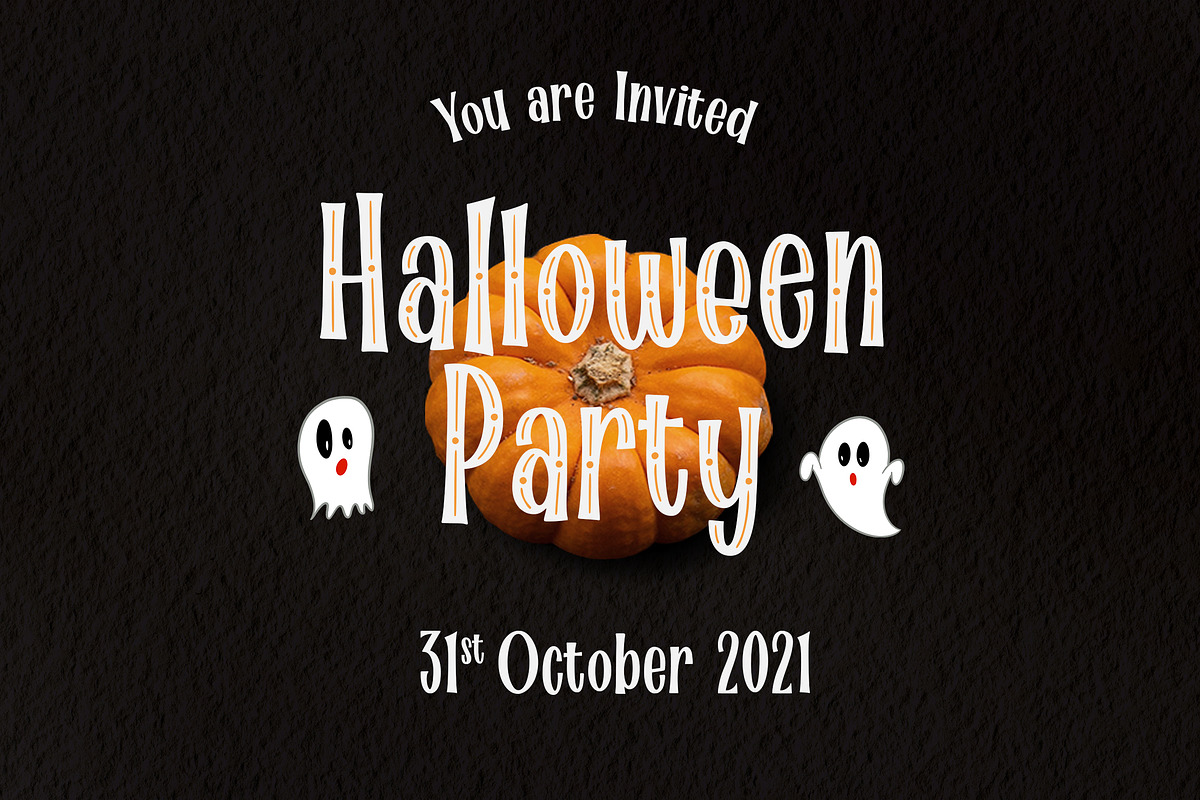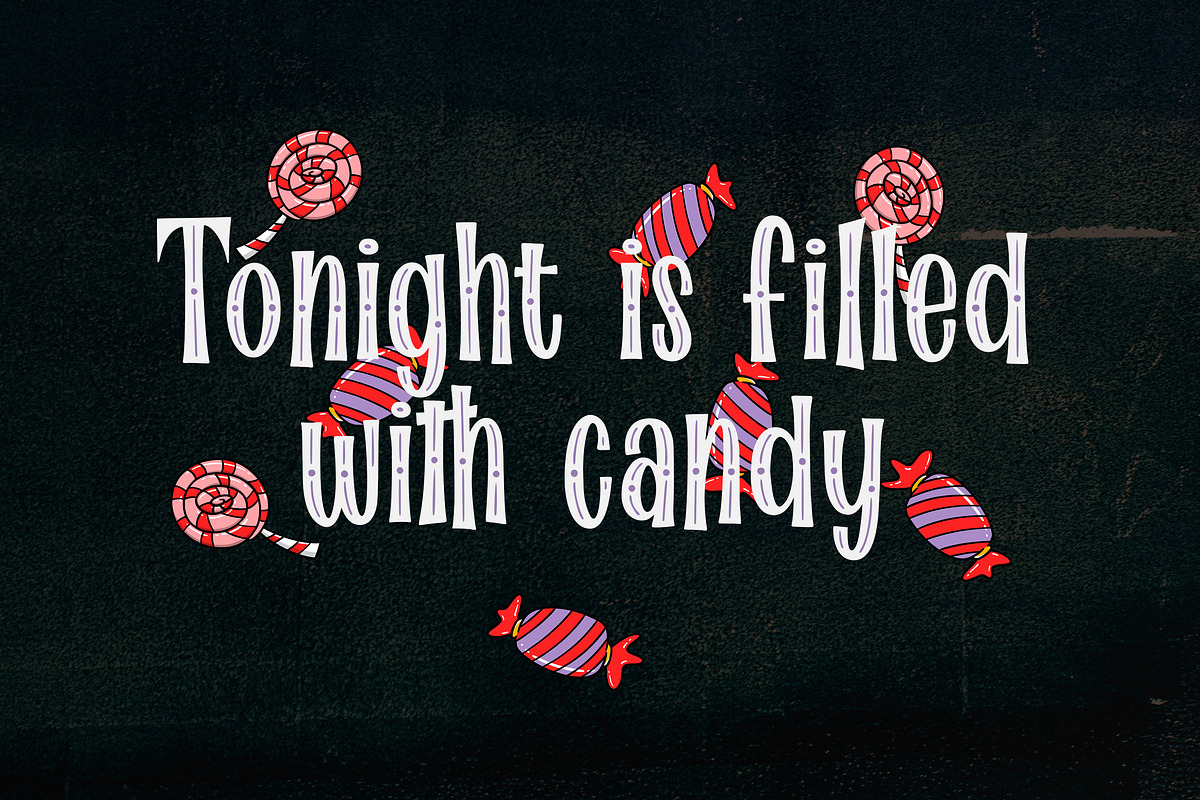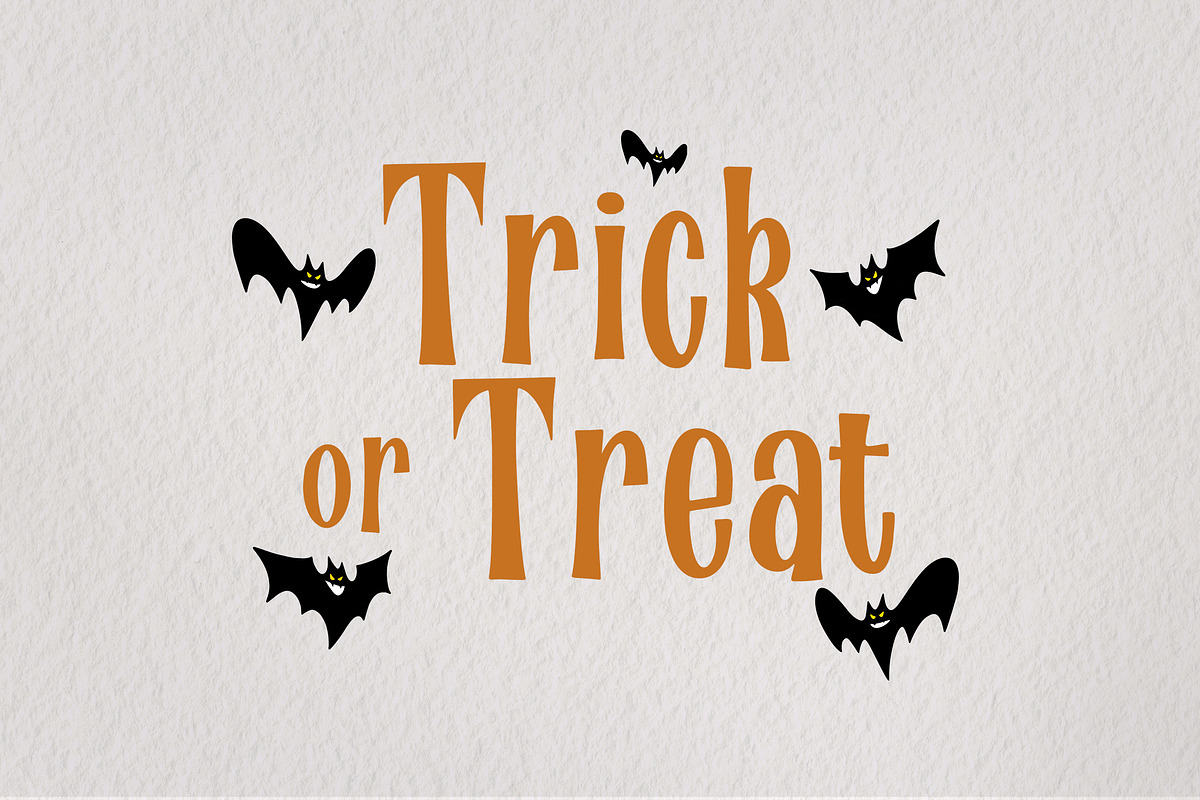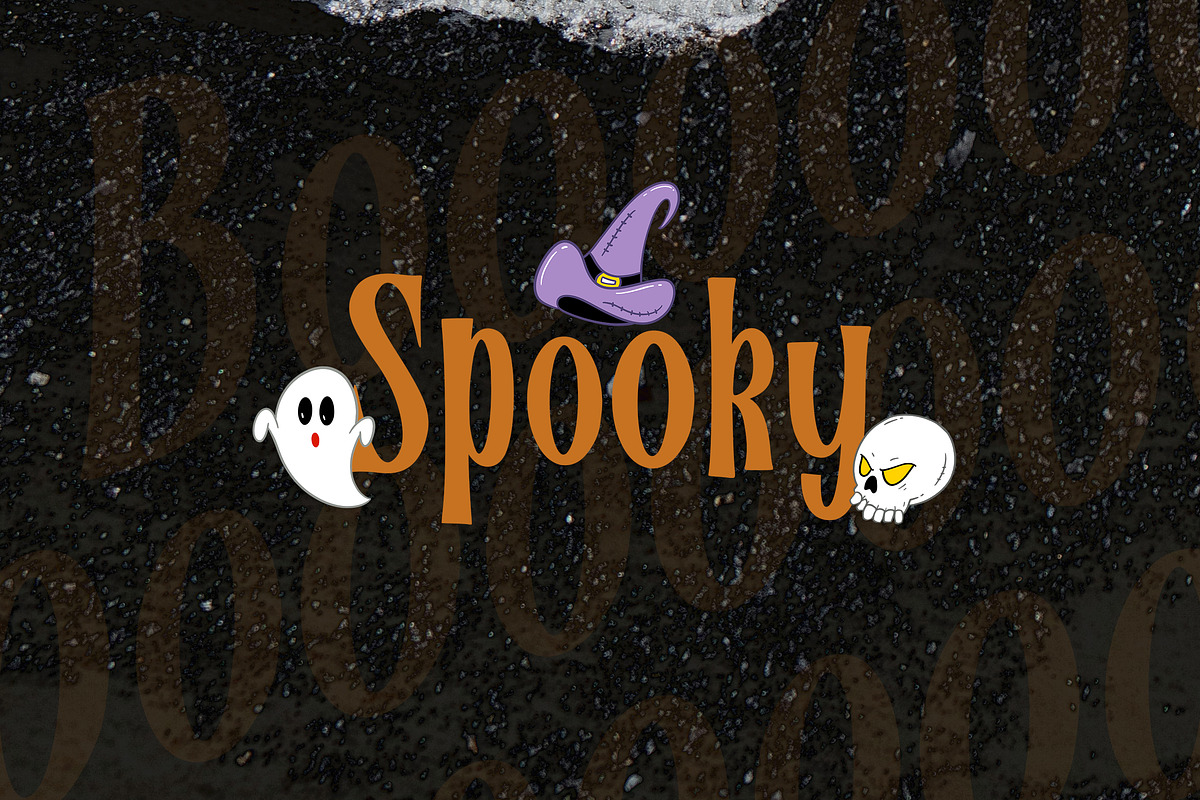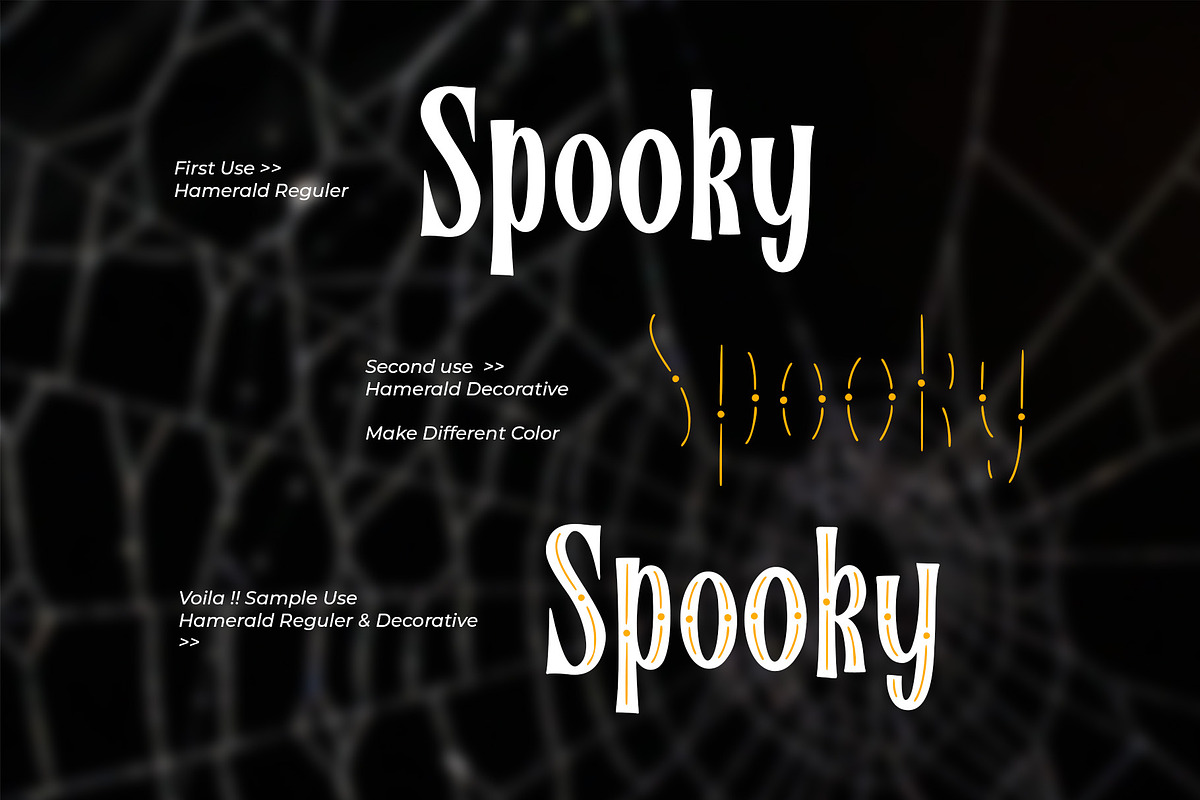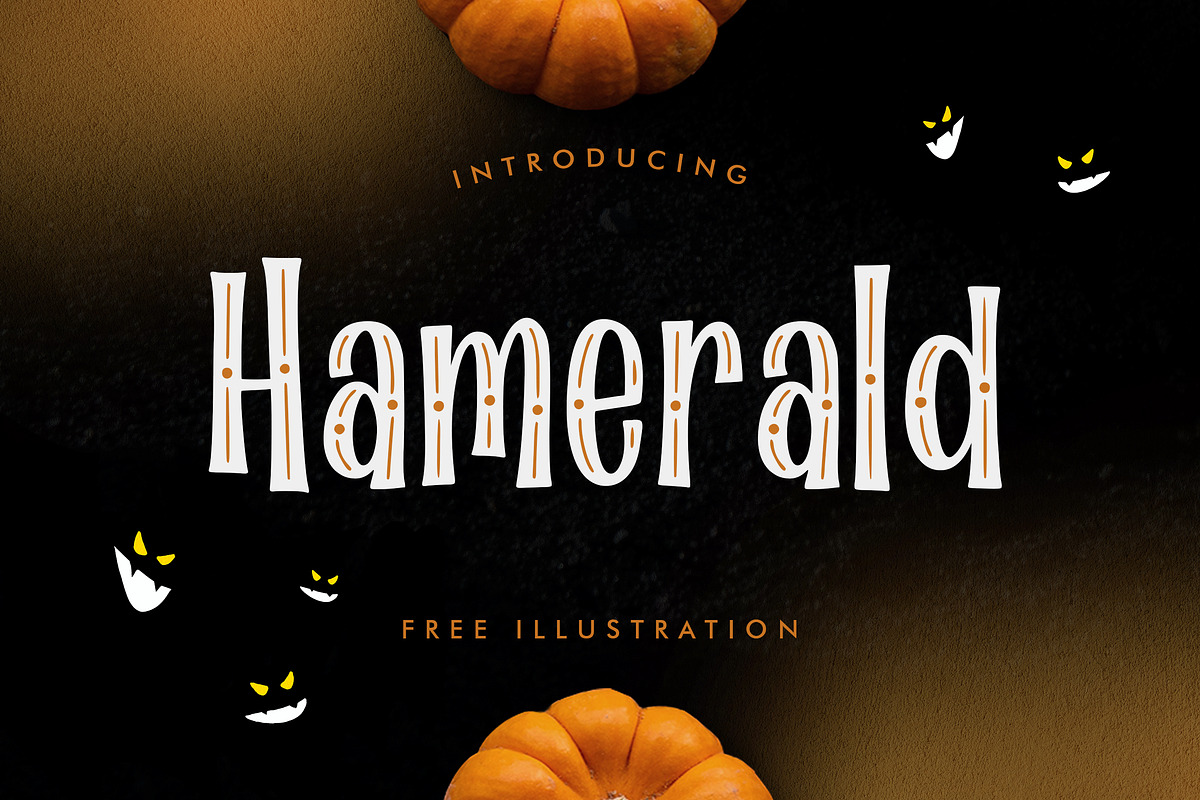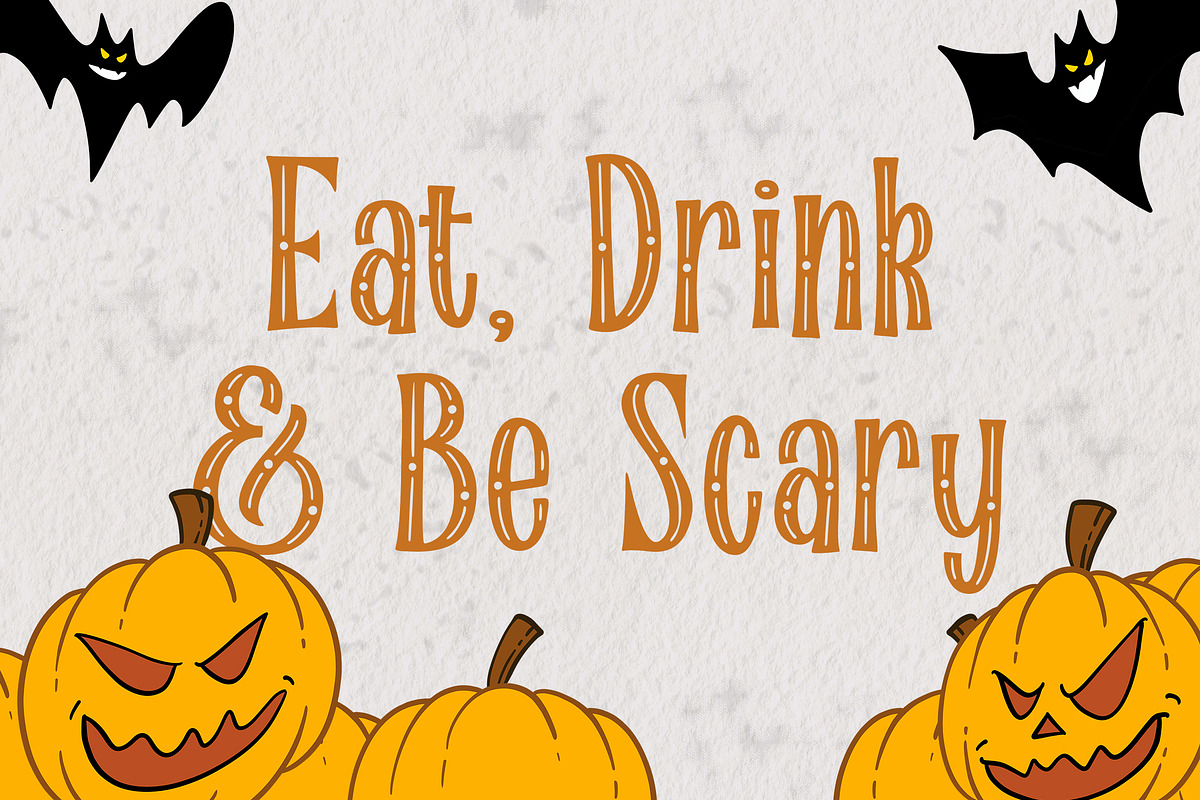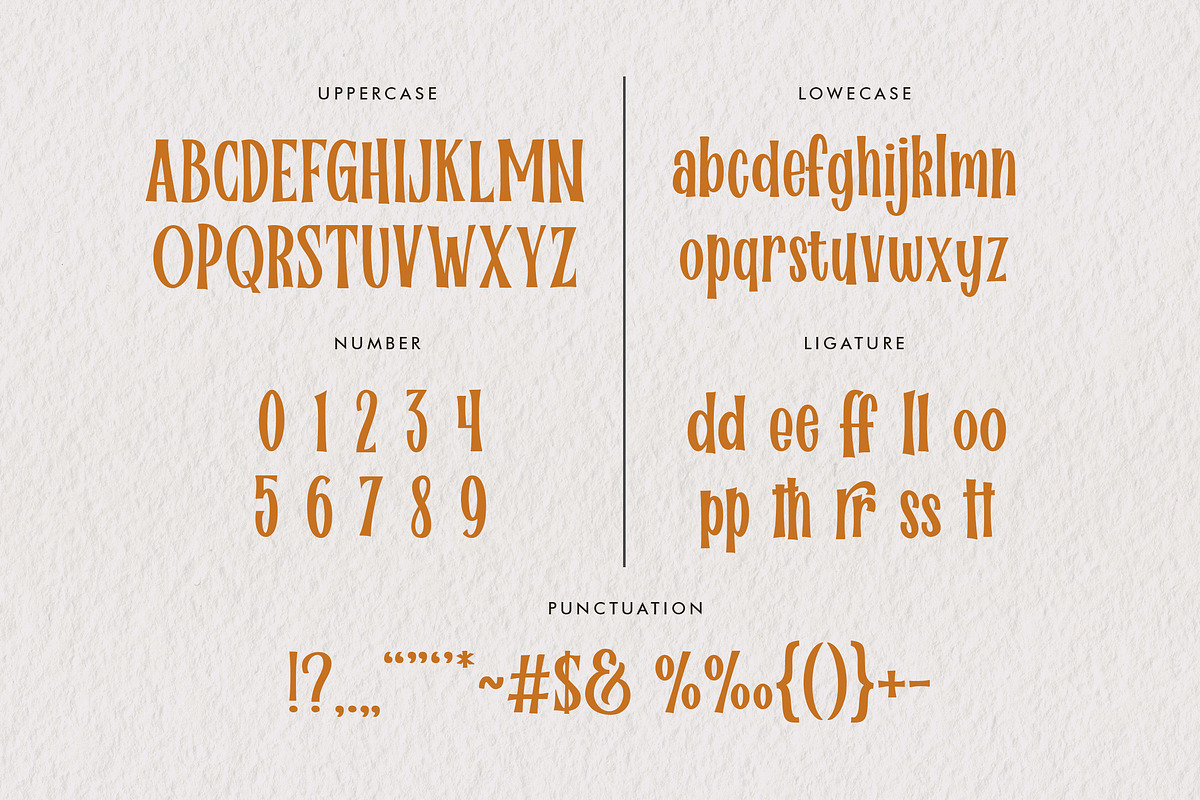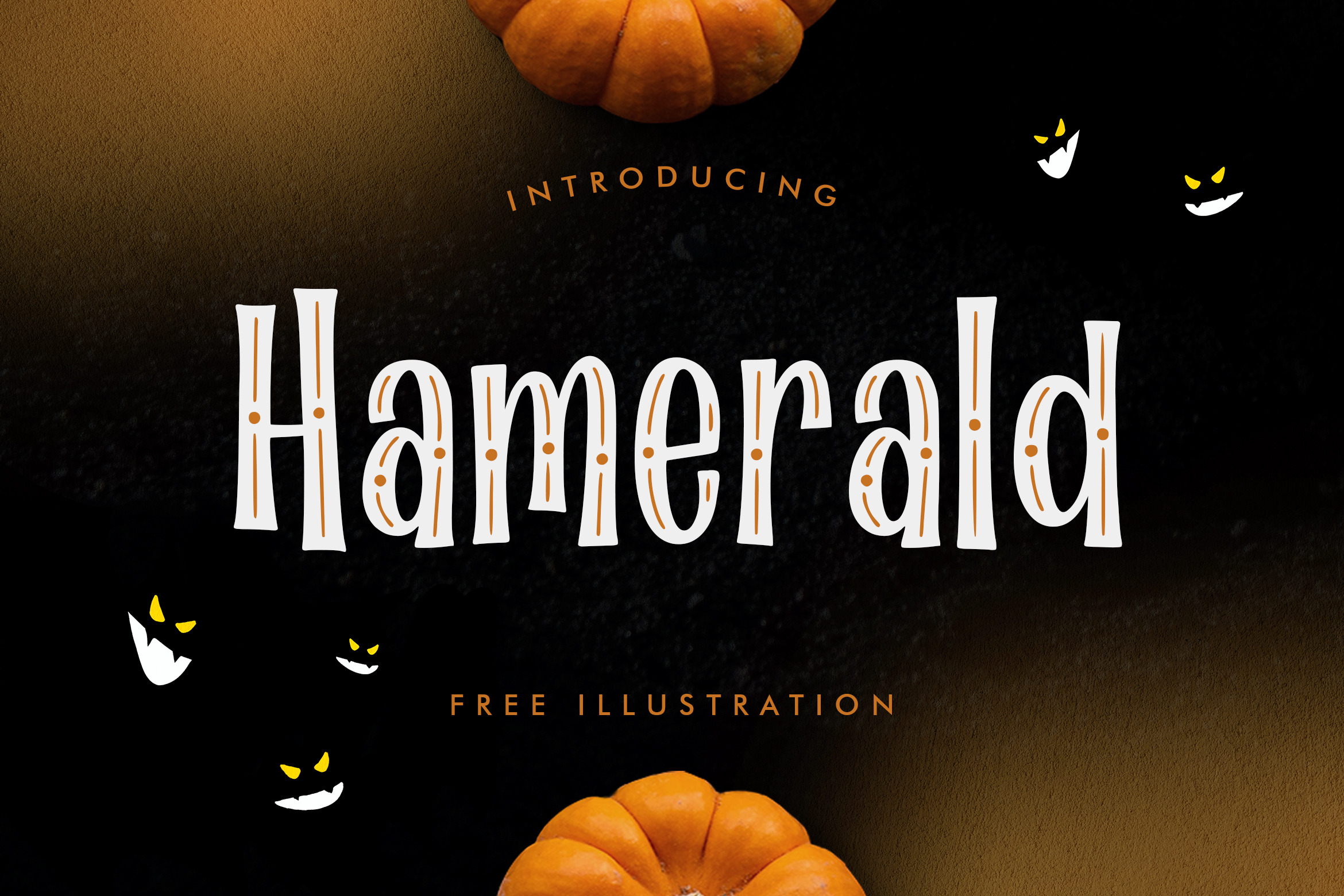
Hamerald - Seasonal Halloween Font
Tricks or Treats?
Introducing Hamerald - Seasonal Halloween Themes Font.
Hamerald inspiration from seasonal Halloween Themes, Hamerald Decorative style inspired from bones illustration. Hamerald font is perfect for use as a poster design, branding, logos, apparel design, tattooo or other design needs.
Hamerald font containing uppercase and lowercase, plus numerals and a full range of punctuation. There are alternate stylystic version and ligature. To access these, simply turn on 'Stylistic Alternates' or access them via a Glyphs panel.
- Ligature dd ee ff ll oo pp th rr ss tt
- a-z alternate in both regular and decorative style